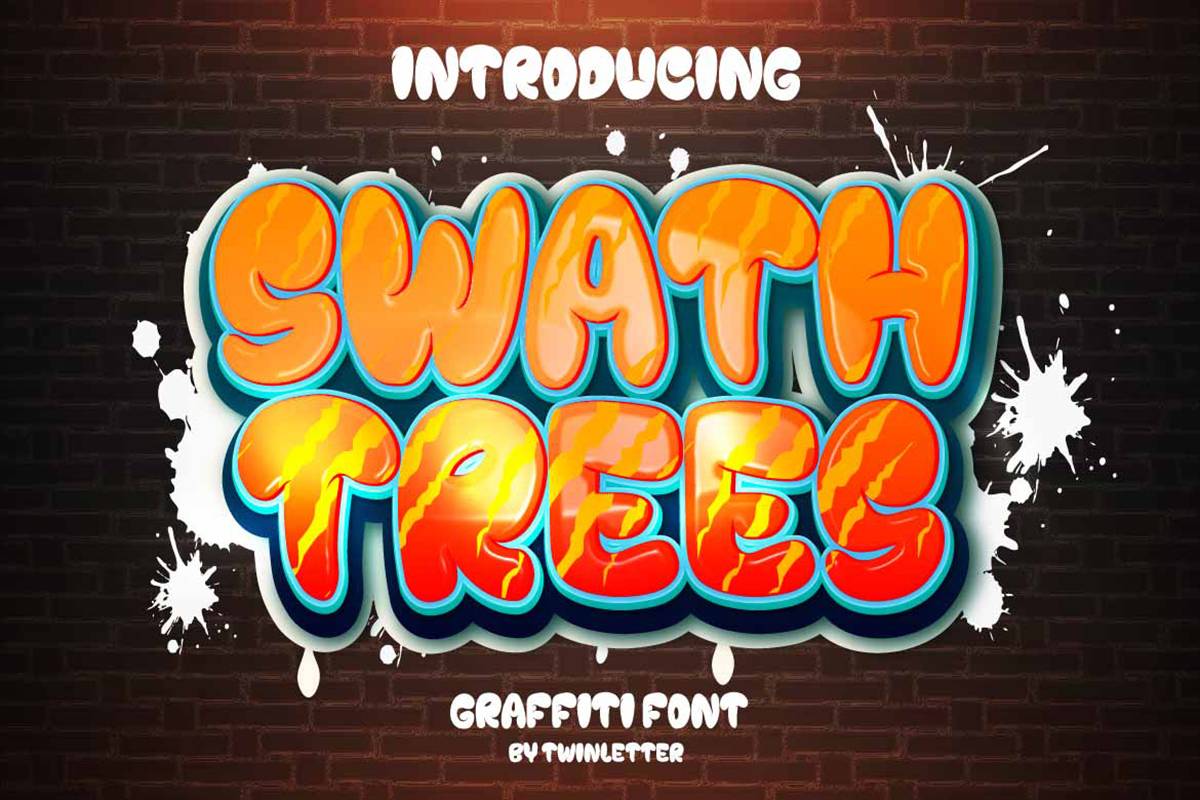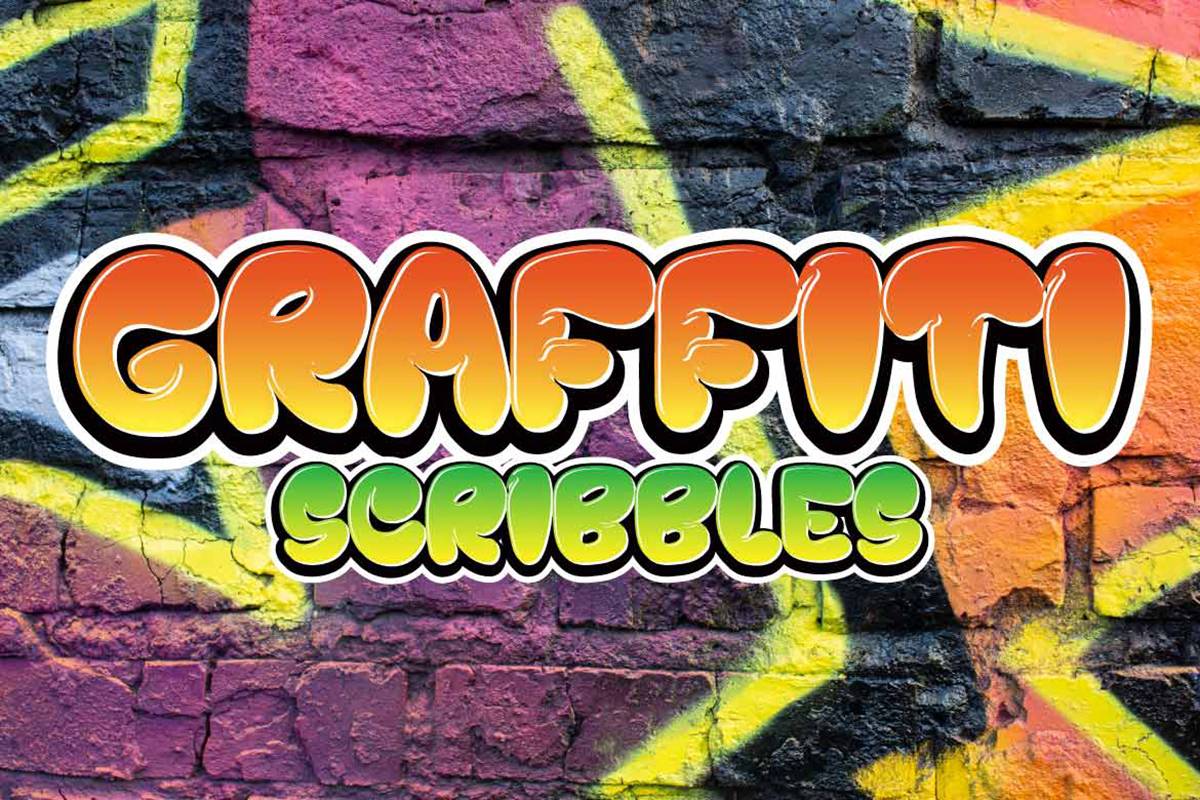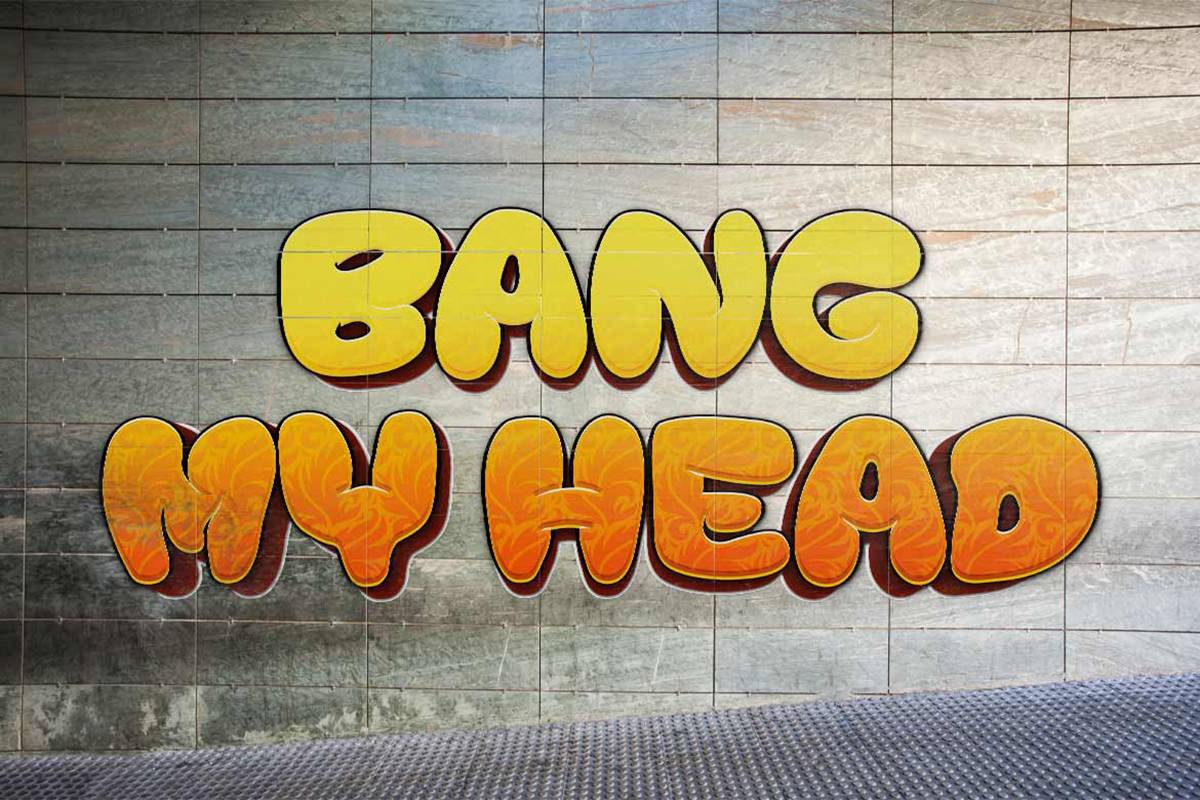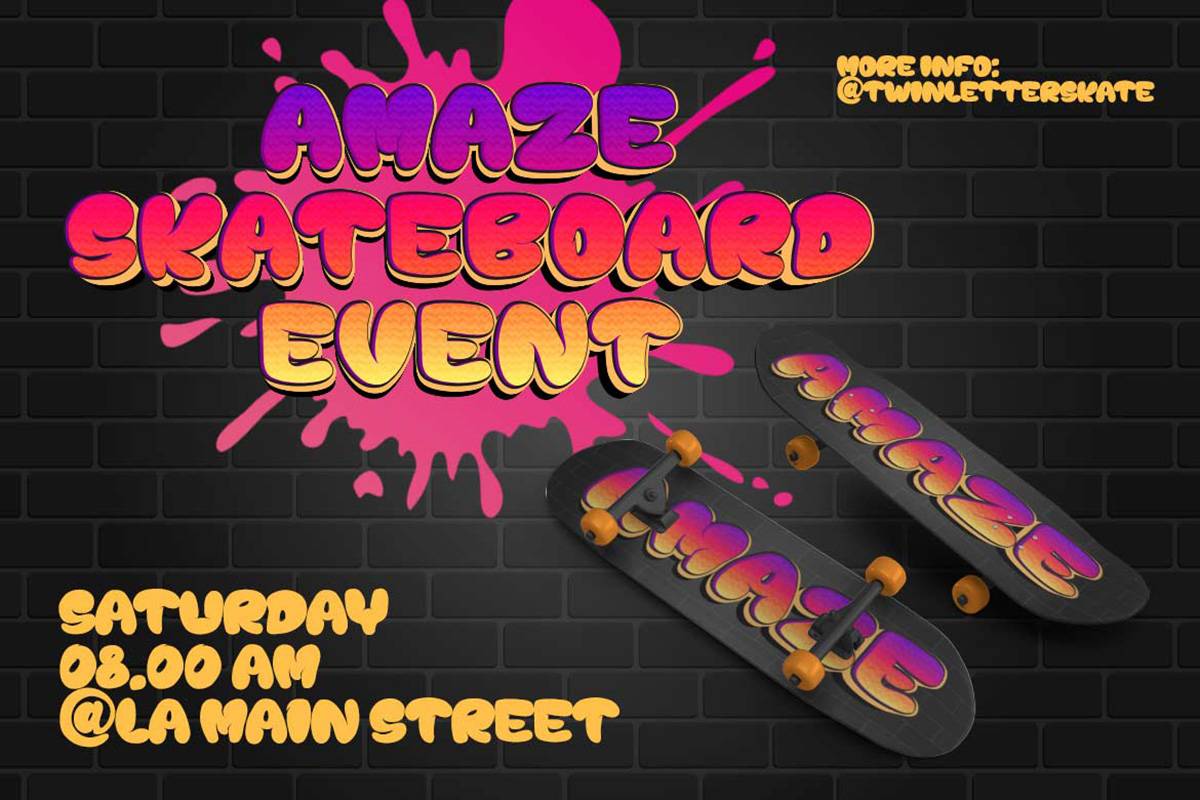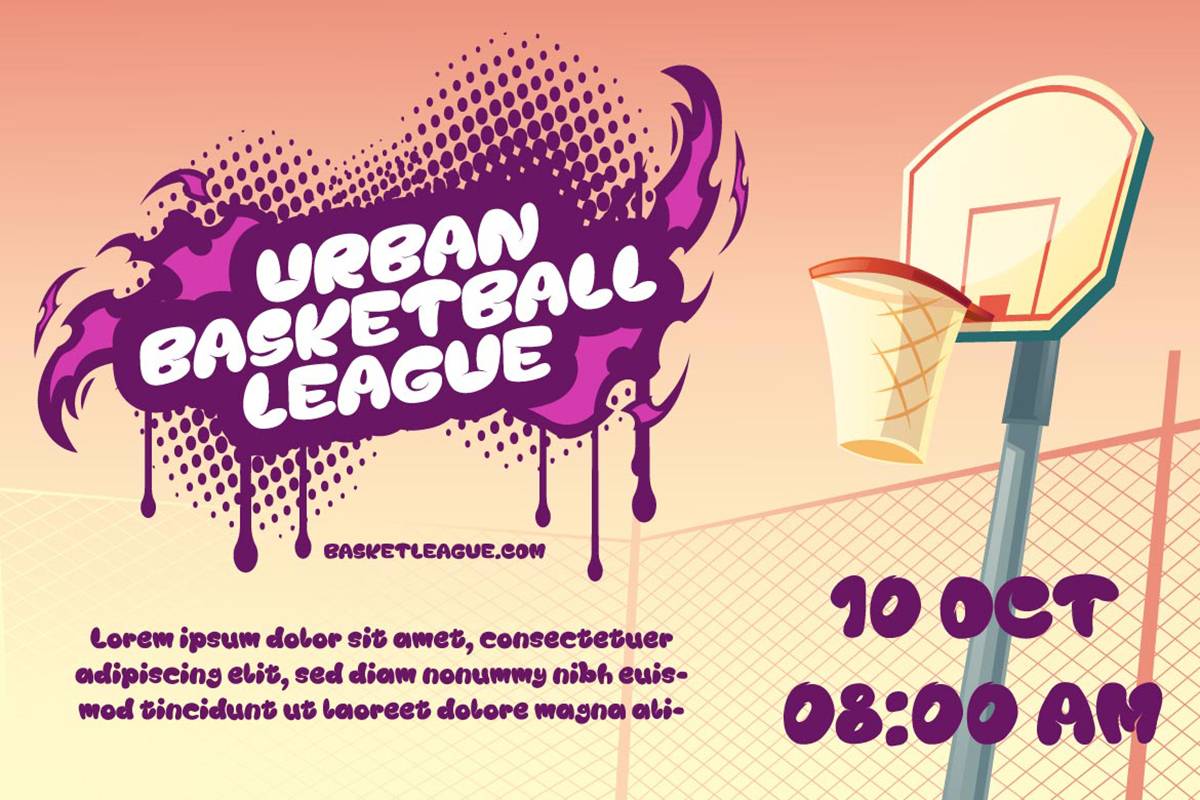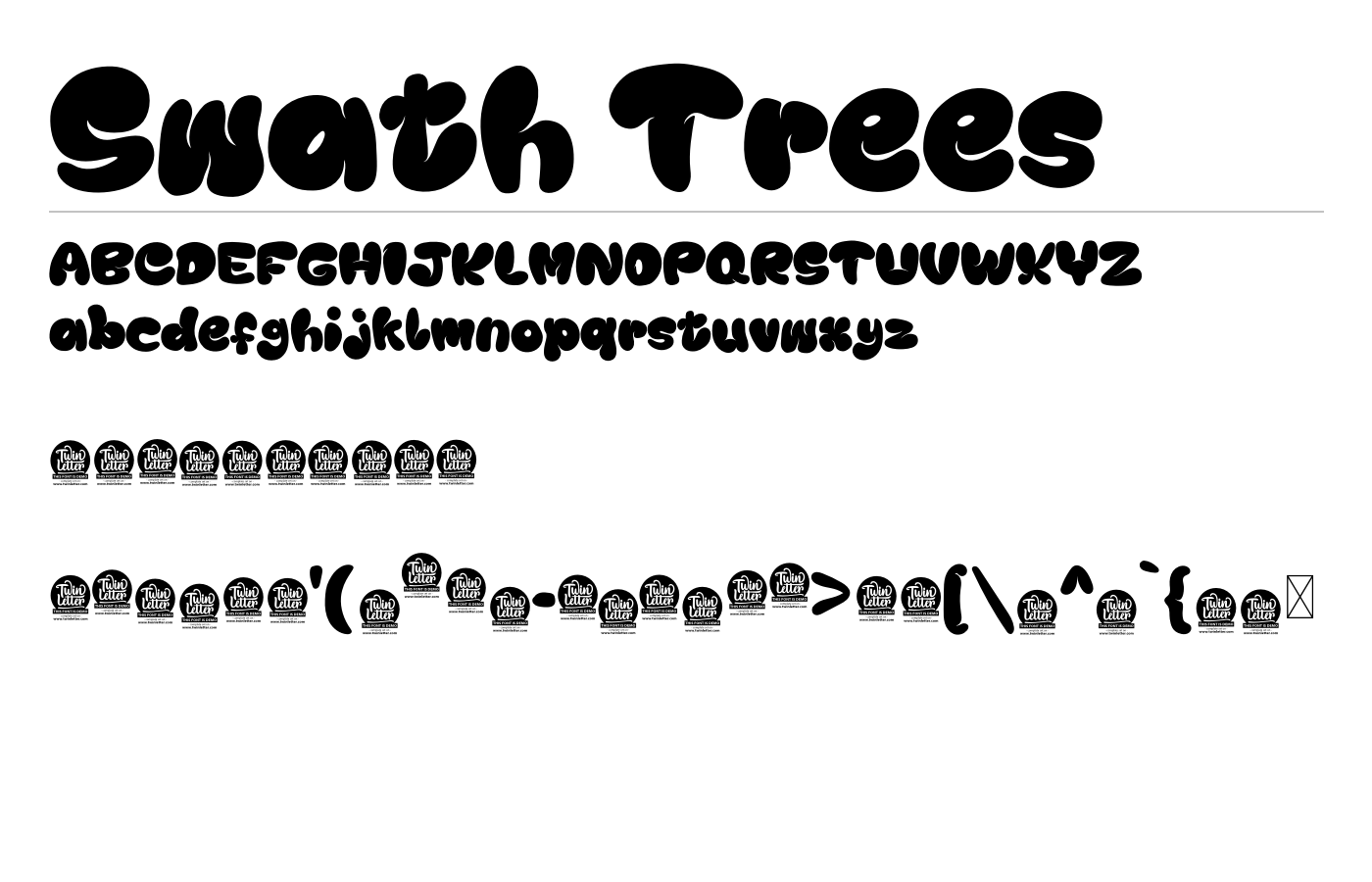
Swath Trees is a playful, bold sans serif font with thick, rounded letterforms that give it a fun and friendly vibe. Its chunky, irregular shapes and high x-height make it perfect for eye-catching headlines, logos, and designs needing a whimsical, casual feel. This font works especially well for projects aimed at children’s products, creative branding, or any context where a lively and approachable style is desired.
Swath Trees Font
About Swath Trees Font